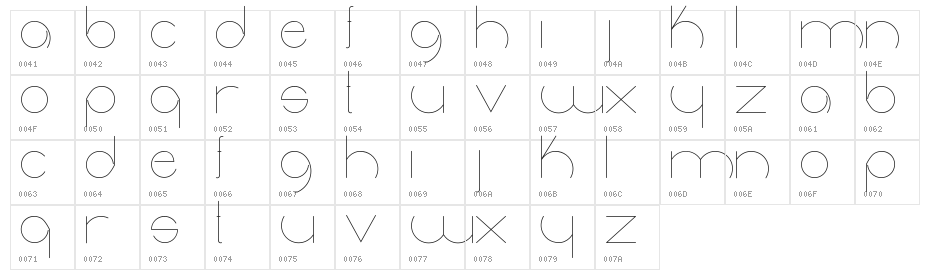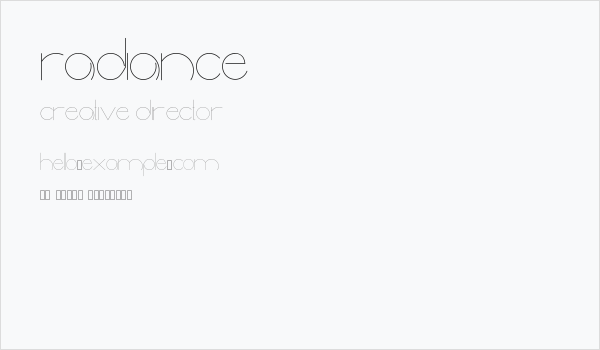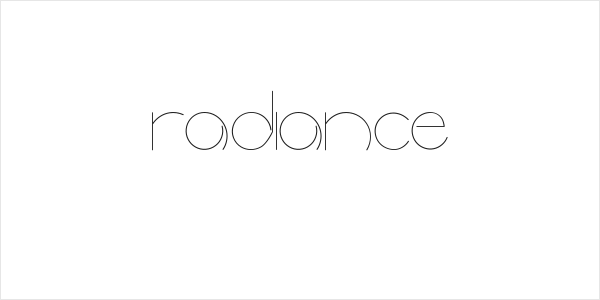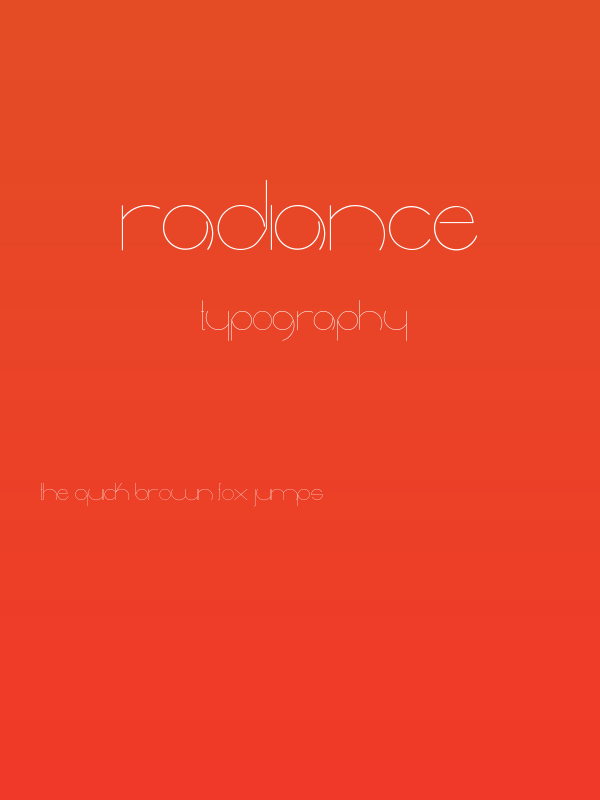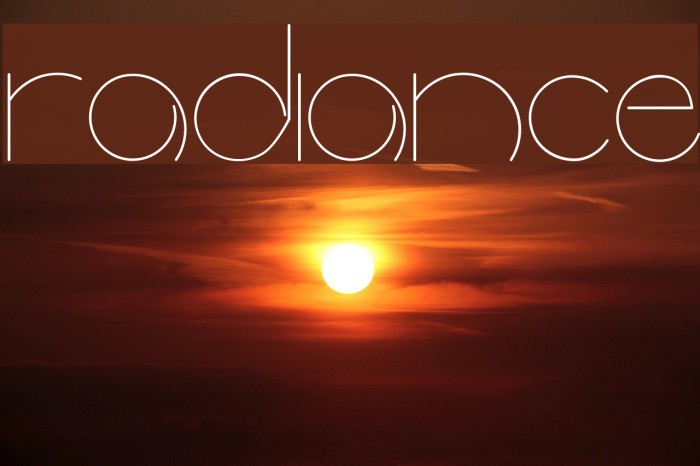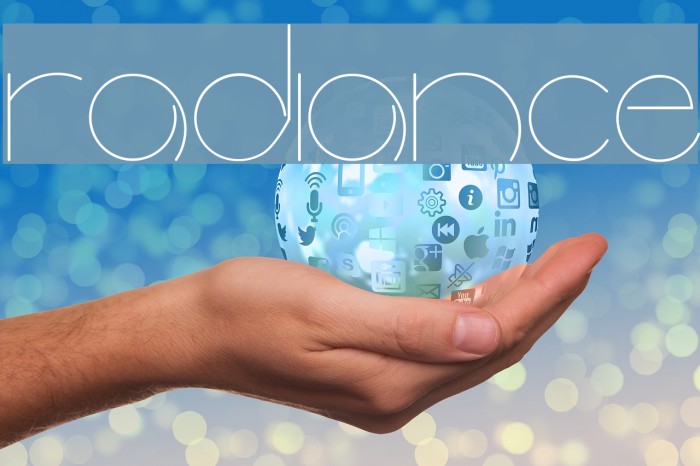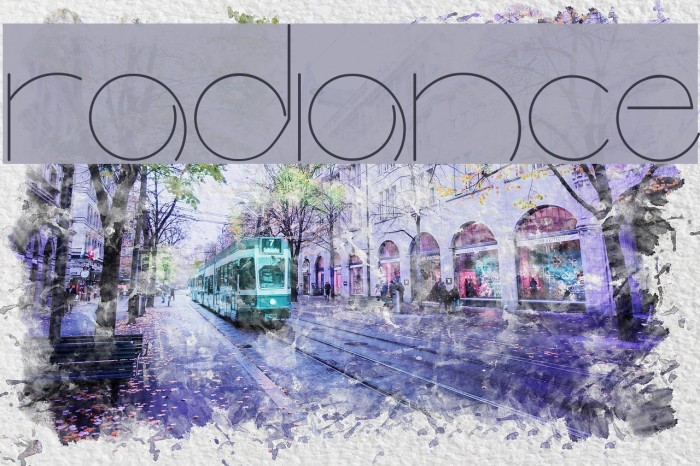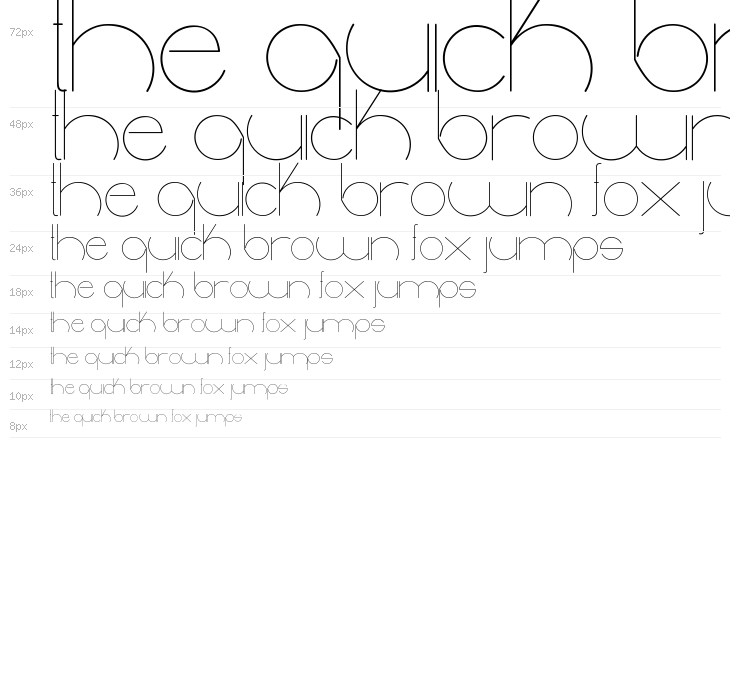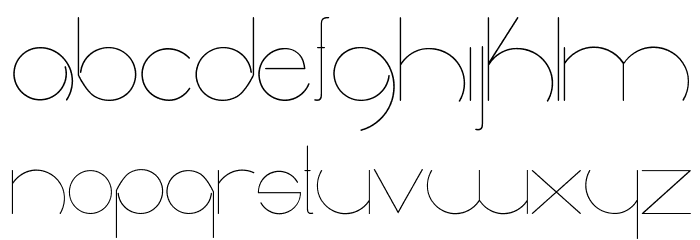
radiance Font
radiance Description
This font features a sleek, minimalist design with thin, elongated strokes and a modern aesthetic. The characters are crafted with a geometric precision, emphasizing clean lines and open spaces. The uppercase and lowercase letters maintain a consistent style, with a focus on circular and semi-circular shapes. The numerals and special characters follow the same design principles, ensuring a cohesive look across all glyphs. This font's airy and elegant appearance makes it suitable for contemporary design projects.
| Proposed Projects | Ideal for modern branding, minimalist posters, sleek website headers, and contemporary editorial design. |